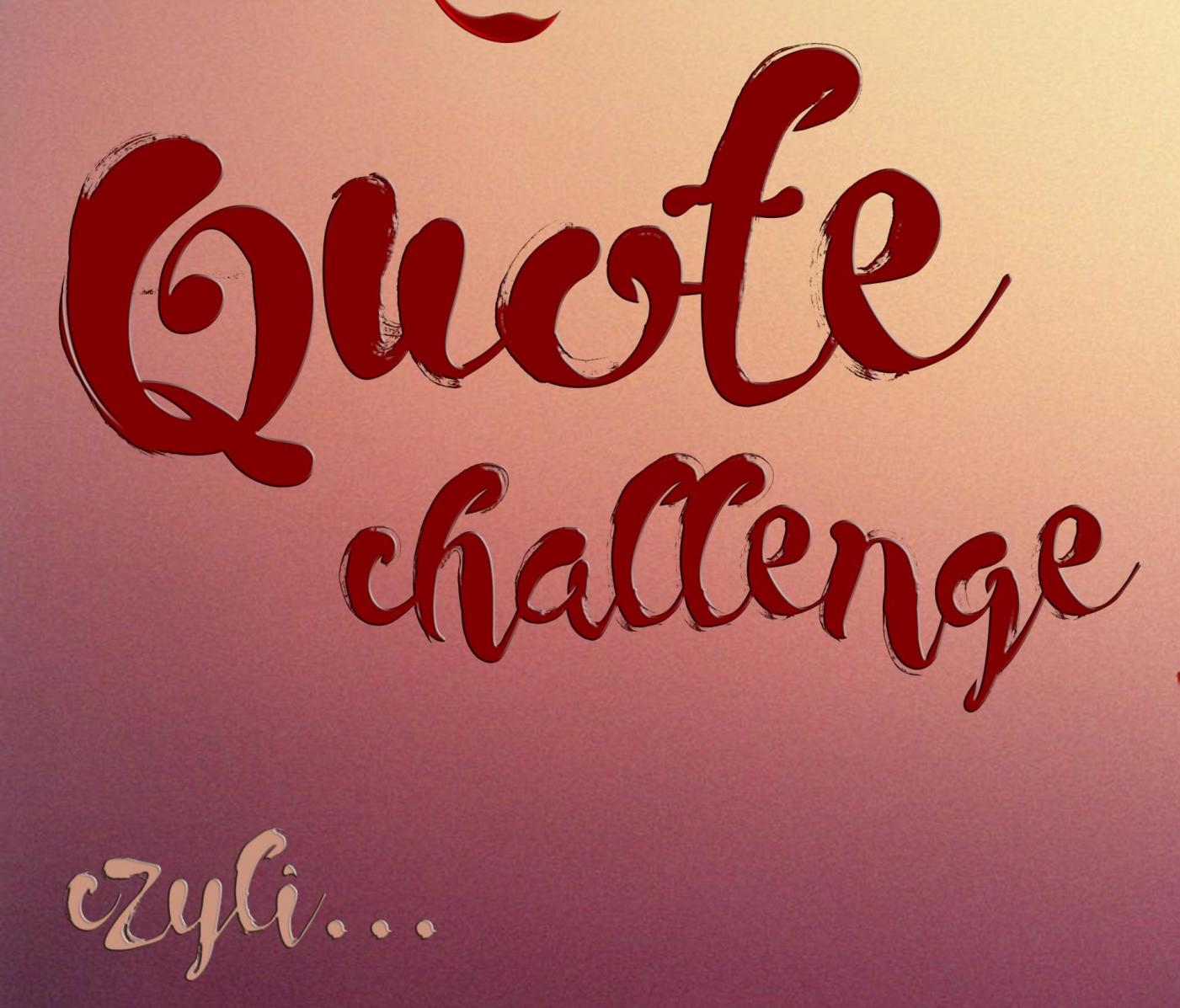
Looking for the font I've once used but accidentaly deleted
I think I've been looking everywhere. I hope you can help me. I'm looking for whatever version you can find. Commercial fonts are fine too though I thinkn I've somehow downloaded it as a free font.
It looks like a care free handwriting :)